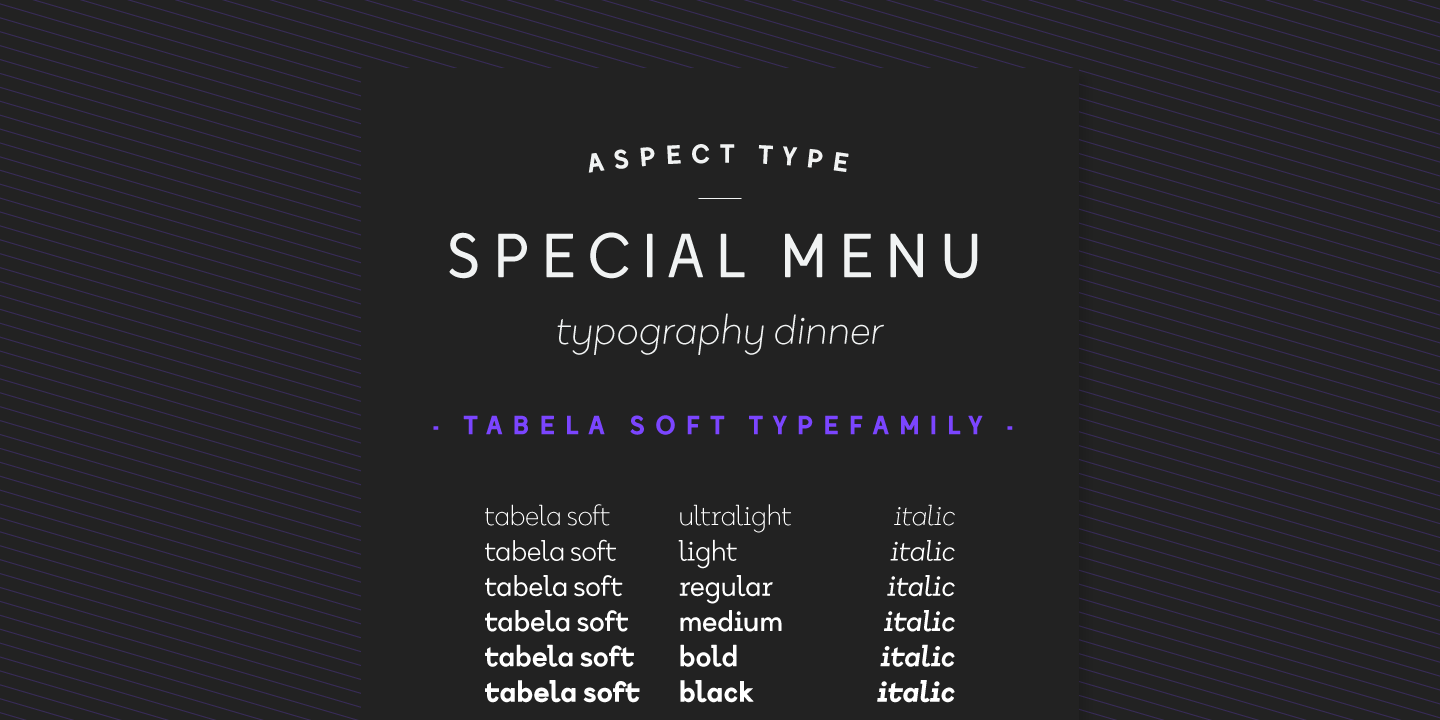
Please note that while you can download Tabela Soft Font for free for testing purposes, you are required to purchase a license for commercial use. This modern, friendly, and exceptionally versatile typeface is an outstanding choice for a broad spectrum of contemporary design projects. It's perfectly suited for cheerful branding, inviting website interfaces, playful app designs, children's books, engaging social media graphics, and any application that demands a clean, approachable, and subtly unique aesthetic. Its soft, rounded edges create a warm and welcoming feel.
What makes Tabela Soft Font so exciting is its remarkable ability to combine geometric precision with a gentle, rounded aesthetic. The absence of sharp corners gives it an inherent friendliness and approachability, making it highly suitable for designs that aim to be soft, comfortable, and inclusive. This font isn't just about readability; it's about creating a pleasant visual experience. It’s a typeface that communicates clearly and kindly, making your content feel modern, organized, and effortlessly amiable, perfect for brands that want to convey a sense of warmth and reliability.
The Tabela Soft Font family is typically designed to be comprehensive and highly functional, providing designers with extensive flexibility. You can often find a wide array of weights, ranging from a delicate Thin or Light to a robust Bold or Black, along with corresponding italic styles to complement each weight. This broad spectrum ensures you have the perfect variant to establish sophisticated typographic hierarchies and maintain a consistent, refined visual language across all your design elements. Discover the streamlined elegance and approachable charm that Tabela Soft Font Free Download can bring to your next design masterpiece!